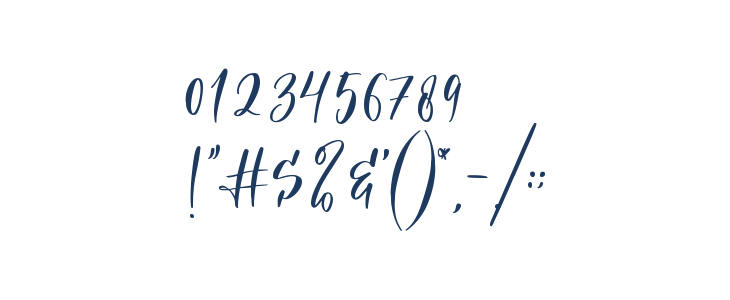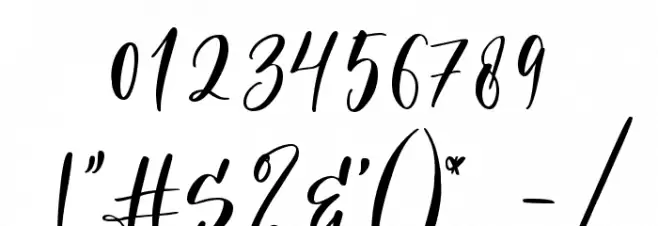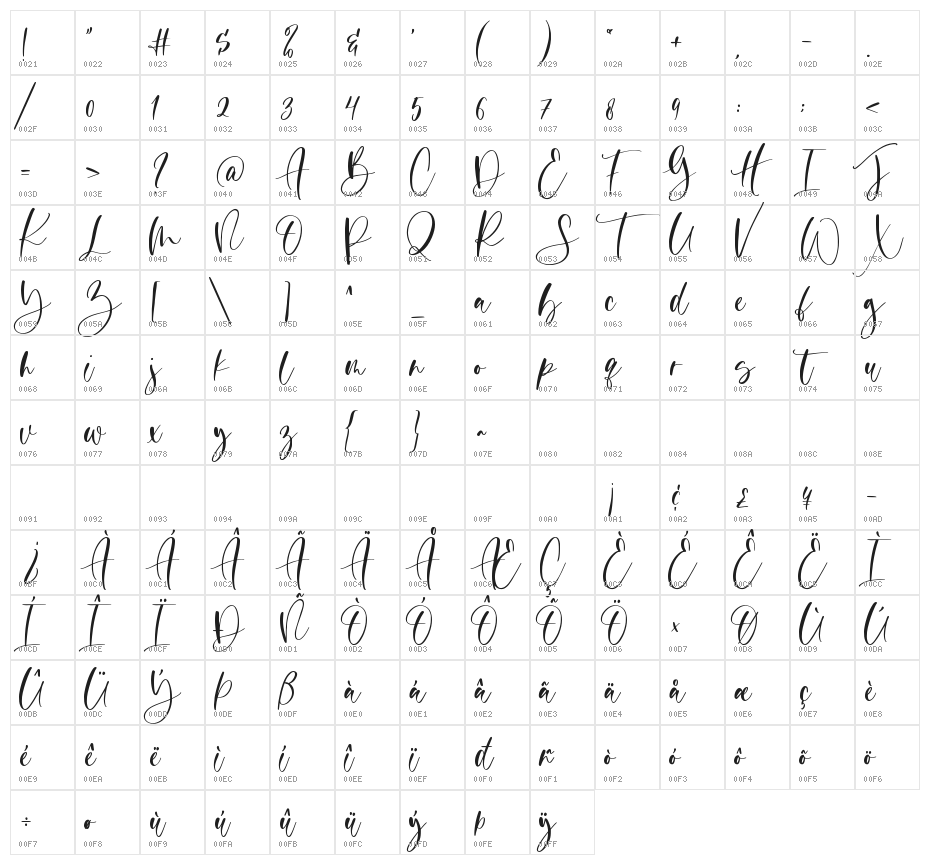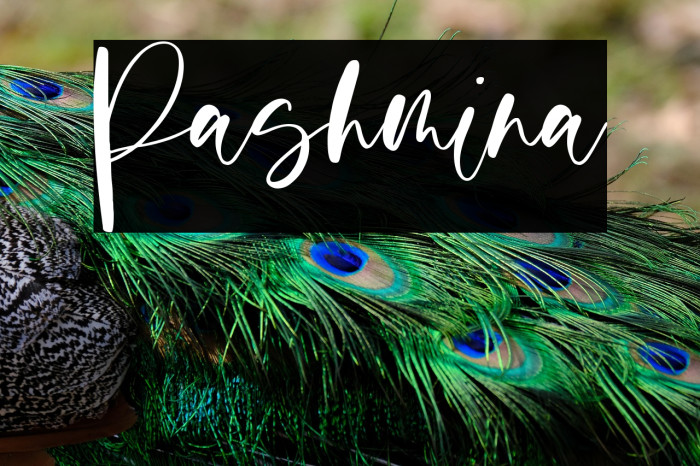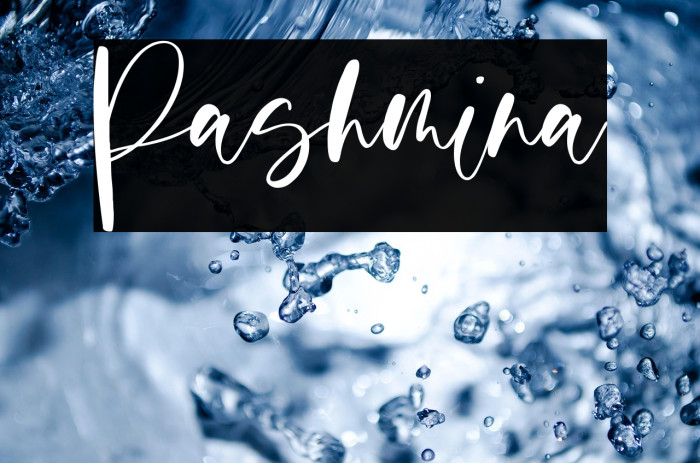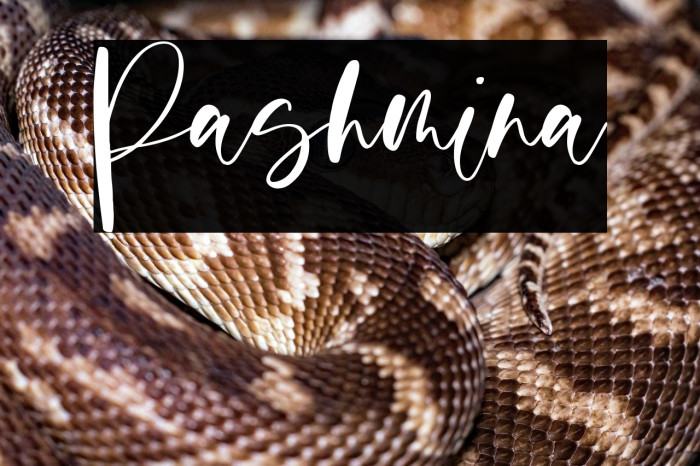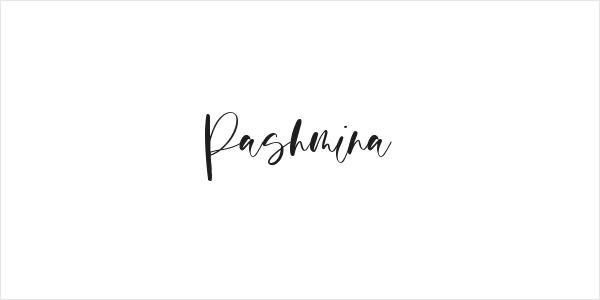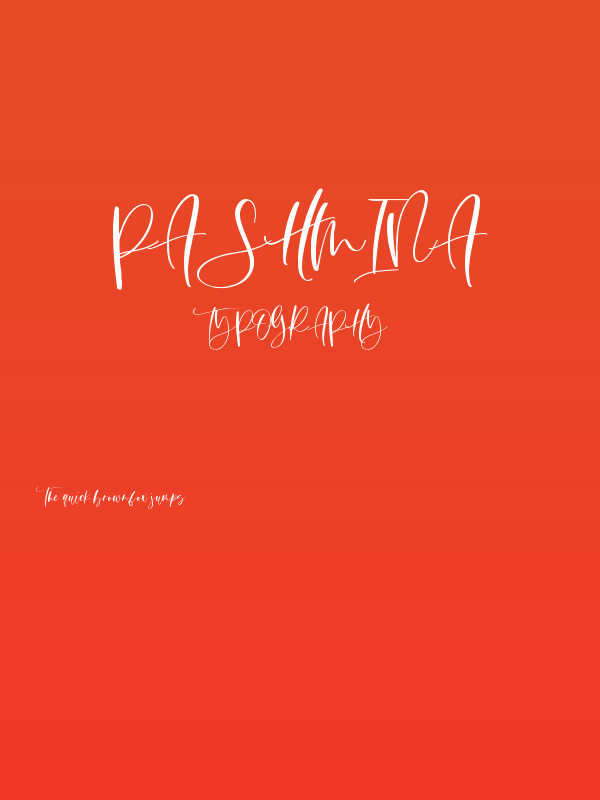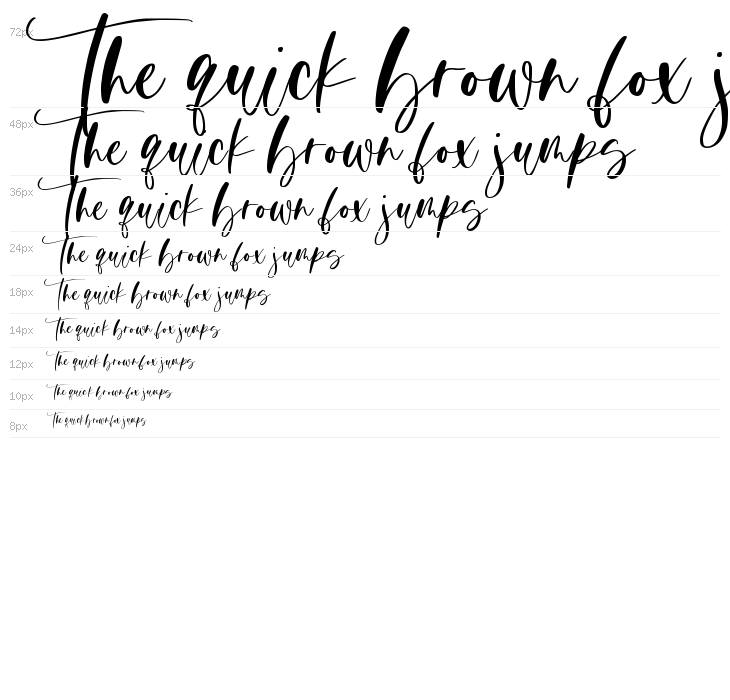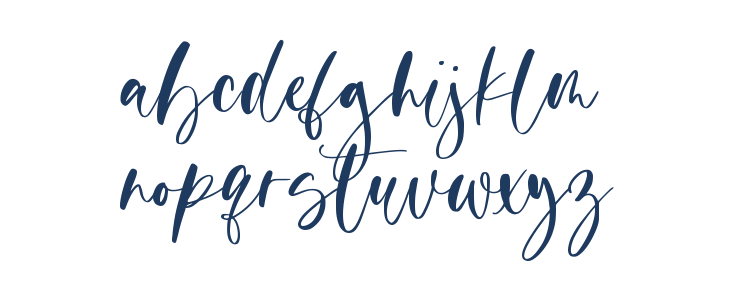
Pashmina Font
Pashmina Description
This font exudes a lively and expressive character, featuring a handwritten style with elegant, flowing strokes. The uppercase letters are bold and dynamic, with a distinct flair that adds a sense of movement and personality. The lowercase letters maintain a cohesive look, with smooth curves and a slightly playful touch. Numbers and special characters are crafted with the same attention to detail, ensuring consistency across all elements. The overall design is both artistic and approachable, making it suitable for creative projects that require a personal touch.
- Proposed Projects: Ideal for wedding invitations, greeting cards, branding, and social media graphics.
- Use Case: Logos, Headlines, Invitations